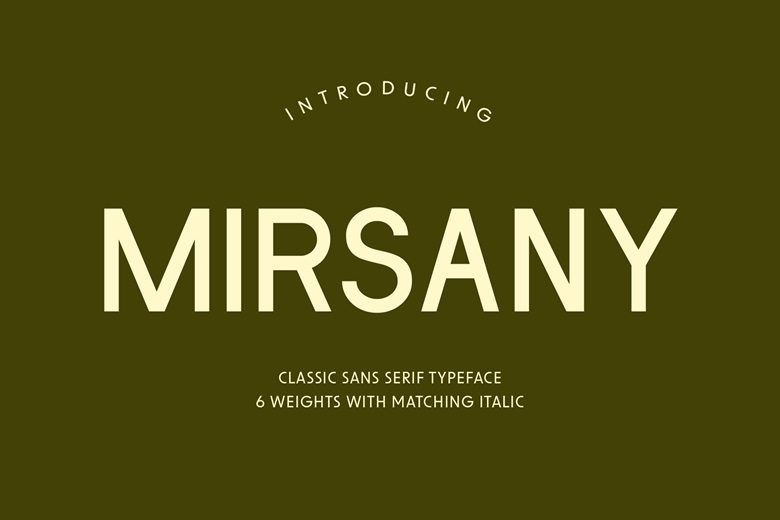
Mirsany Font
Mirsany is a modern sans serif font. Its clean lines and modern touch will add a professional, and sleek touch to any design with Mirsany. It comes with a full set of alphabets, numbers and other much needed punctuation thus providing you with all you require to make easily.
Ideal in posters, greeting cards, logos and in any creative endeavor that is creative, Mirsany can be used due to its versatility and simplicity in the modern world. It is a font that makes your designs look new, smooth, and classic whether it is branding, digital media or print.
Mirsany Sans Serif Font